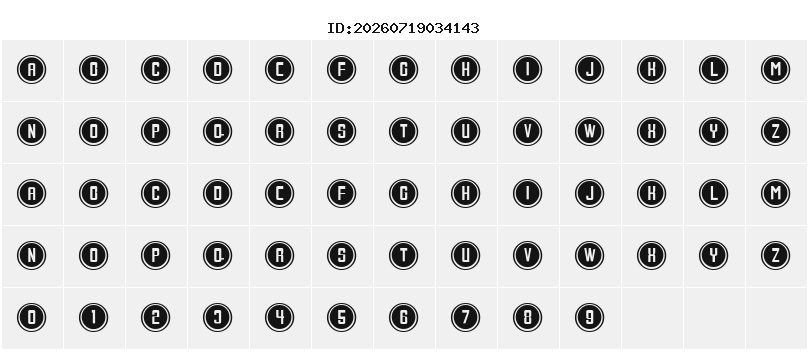
About Console.ttf
Console.ttf is a modern, elegant sans-serif font designed for ultimate readability and visual harmony. Perfect for branding, headlines, web design, and print materials.